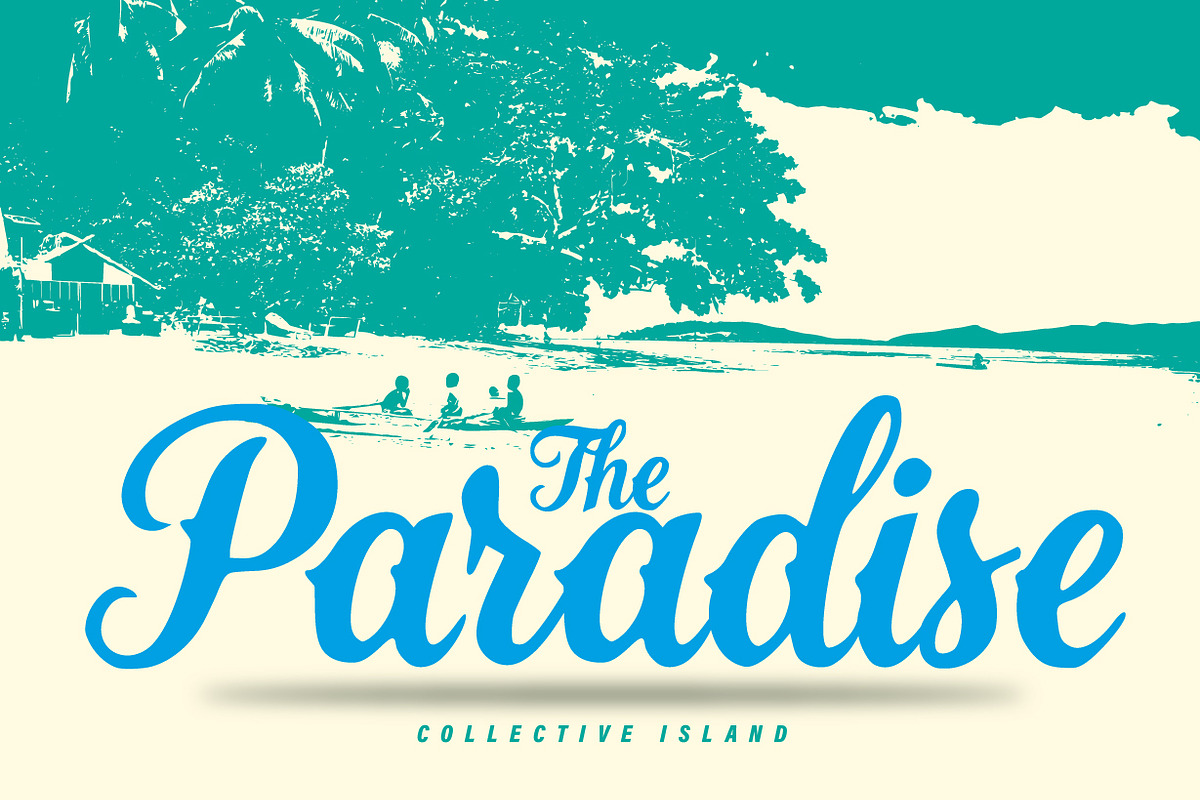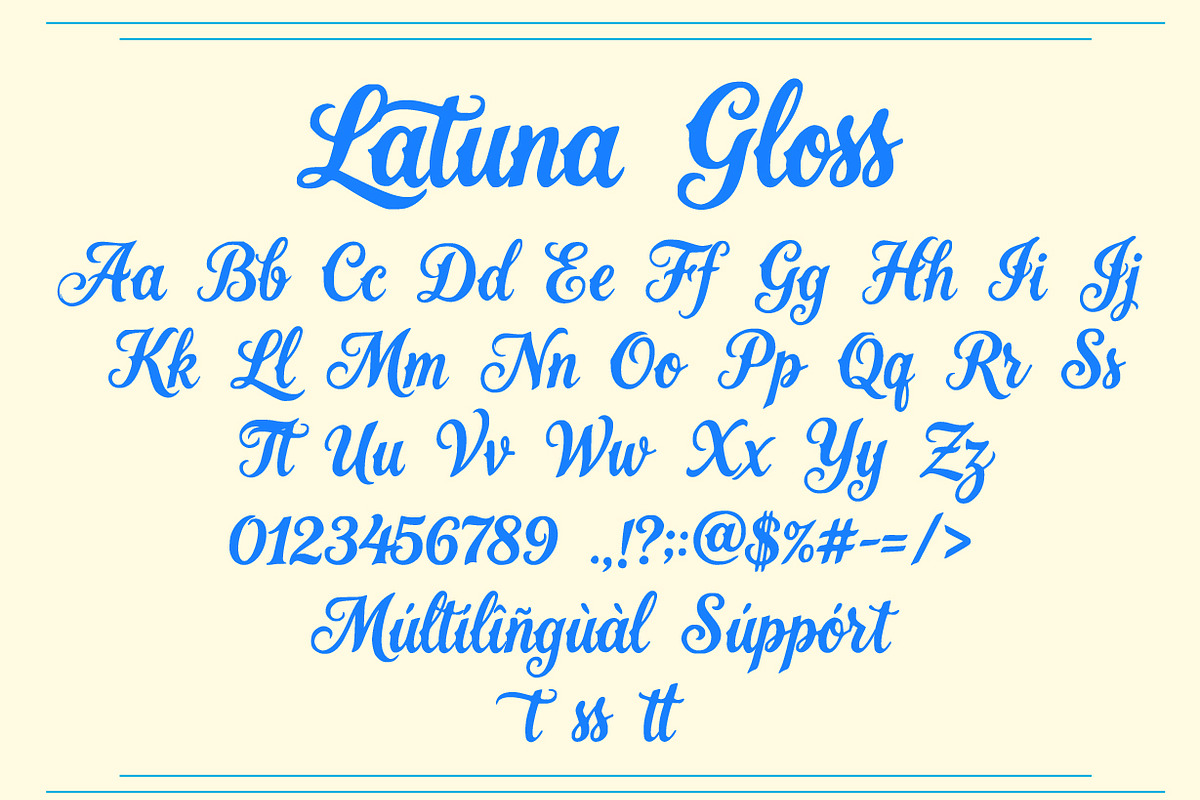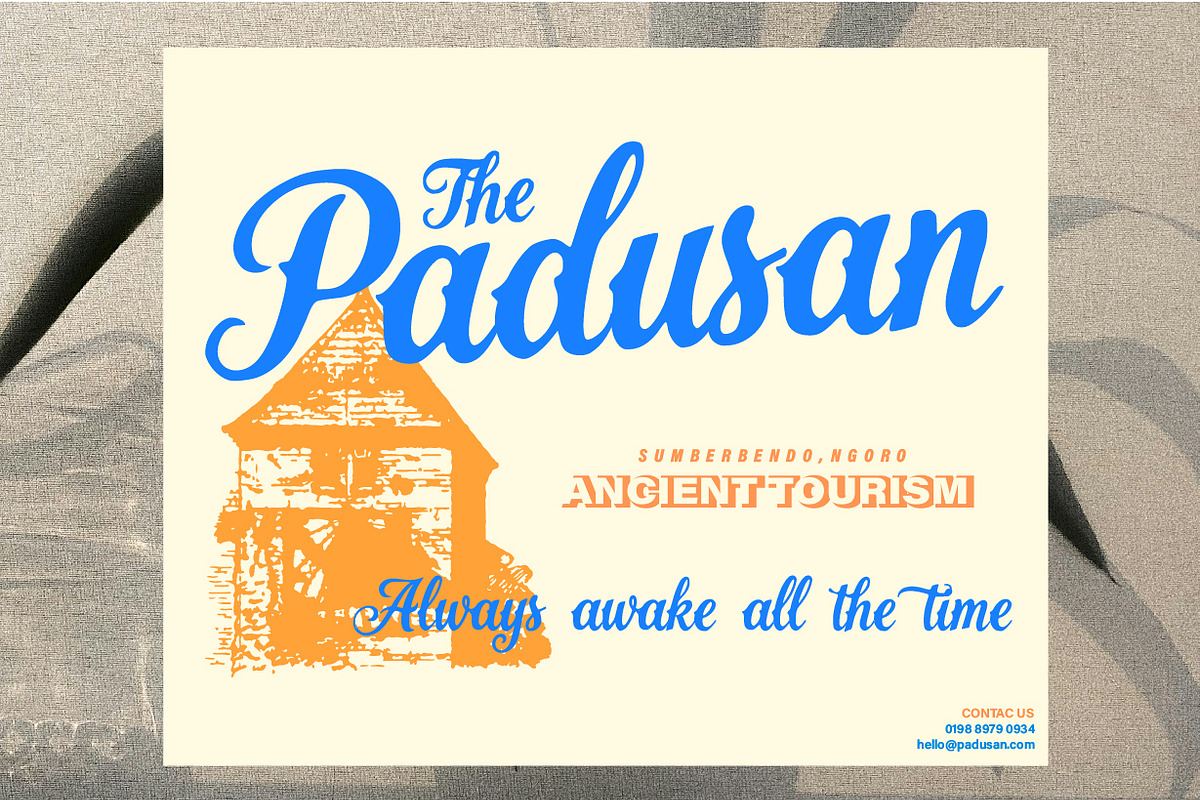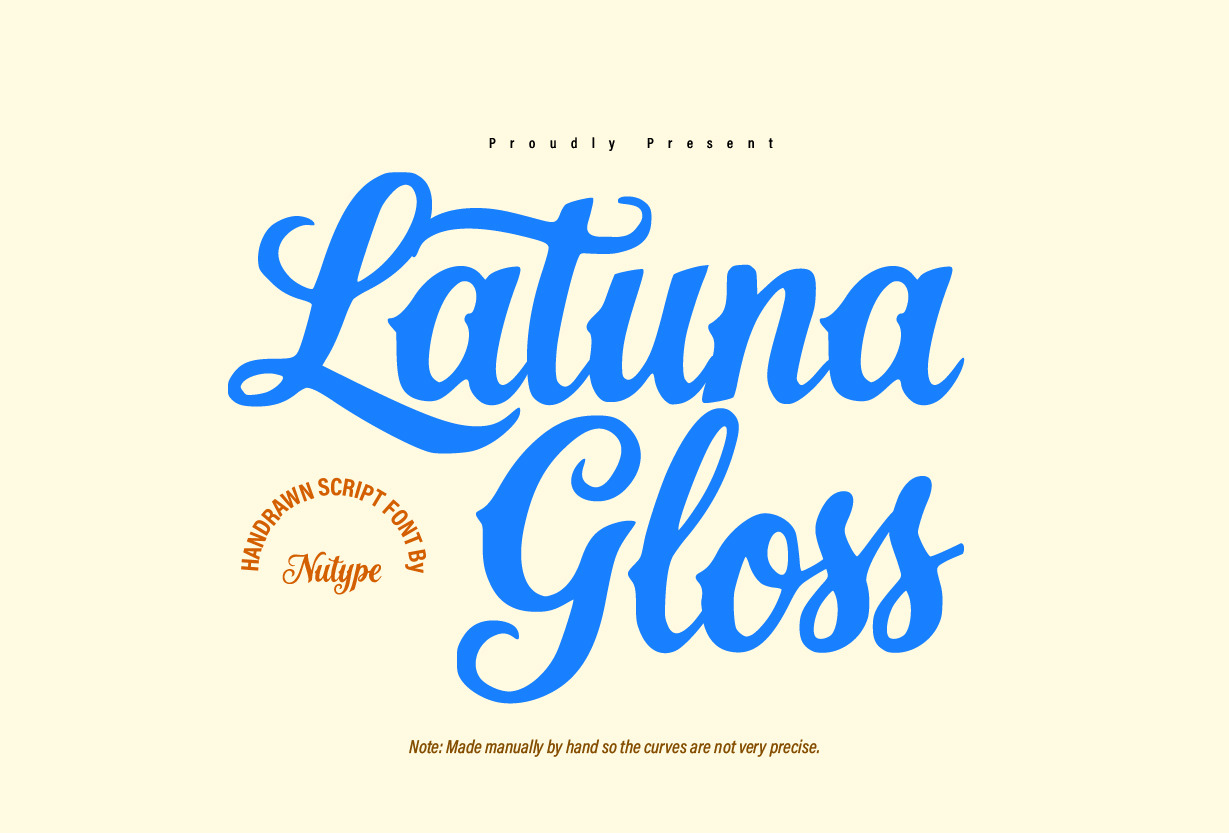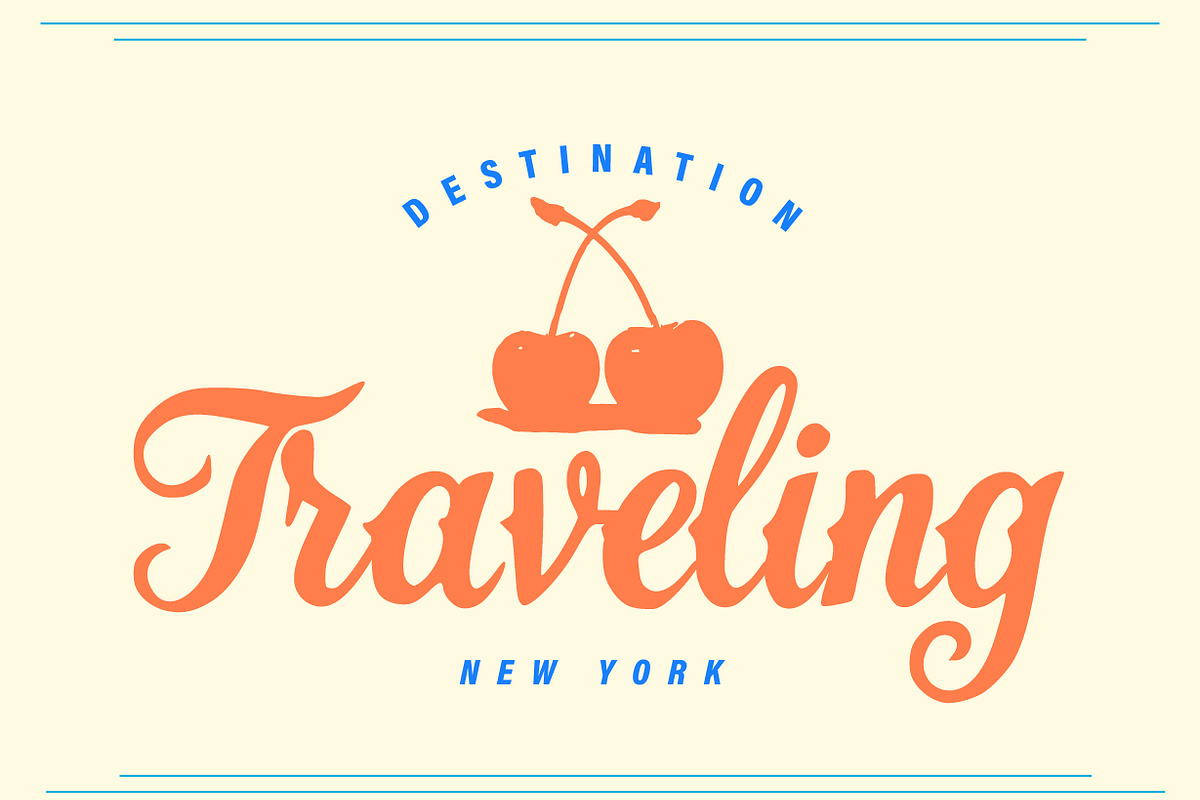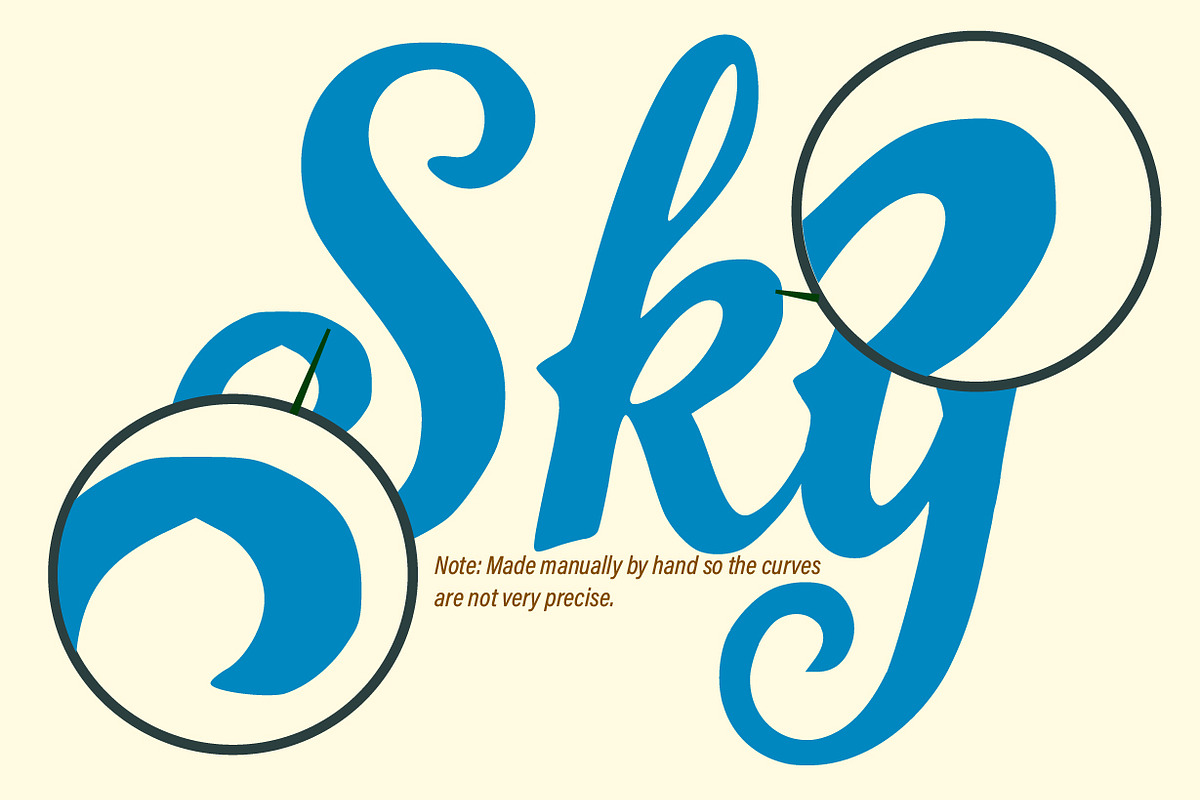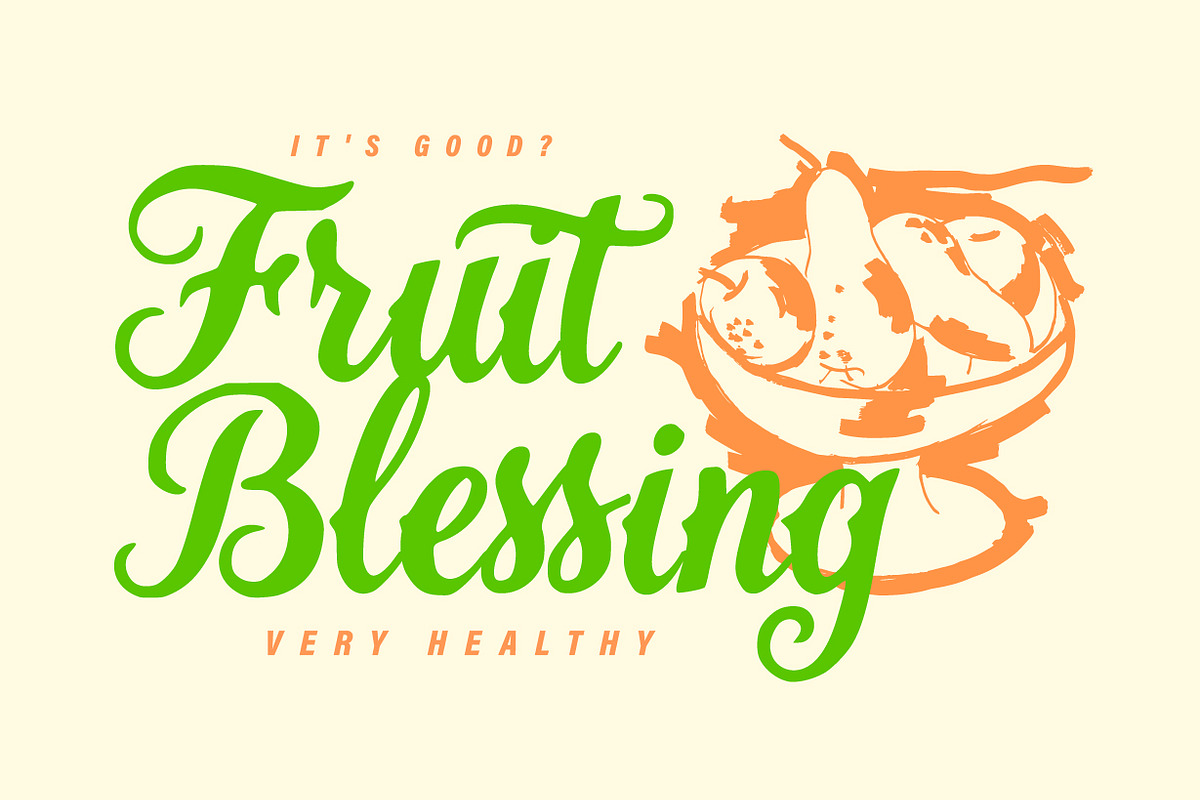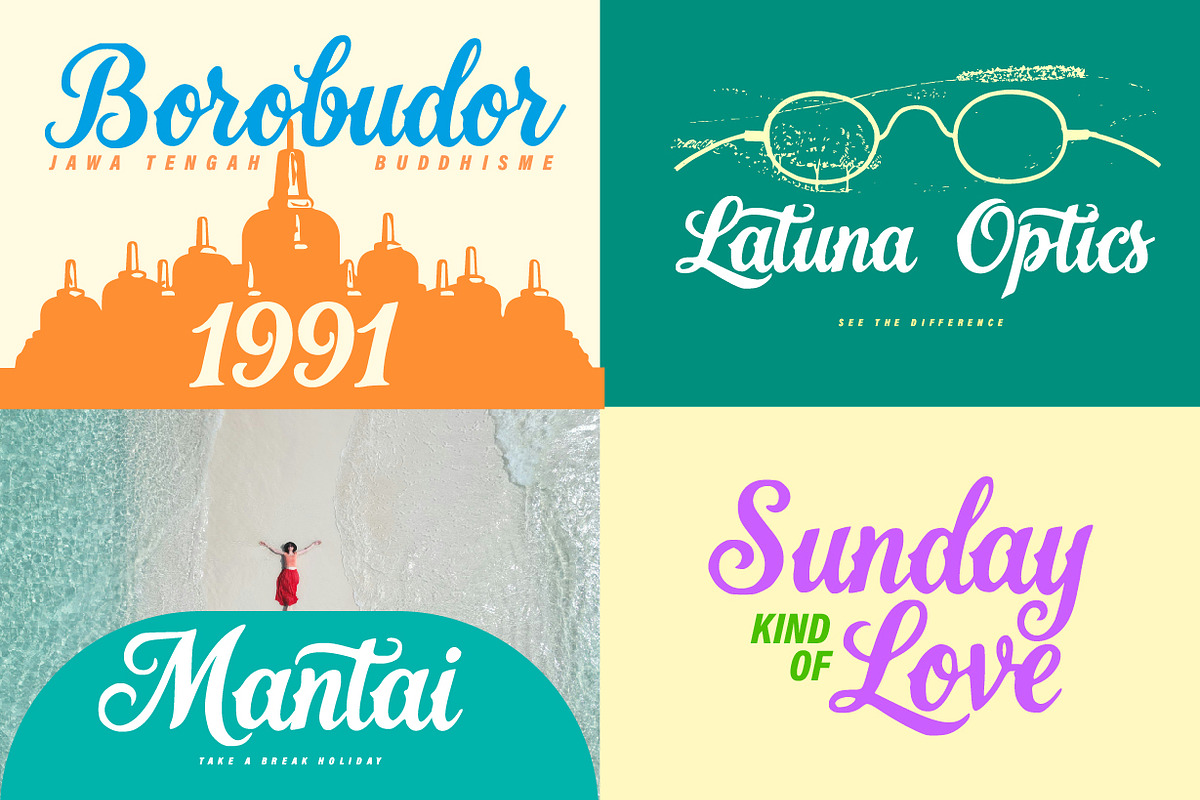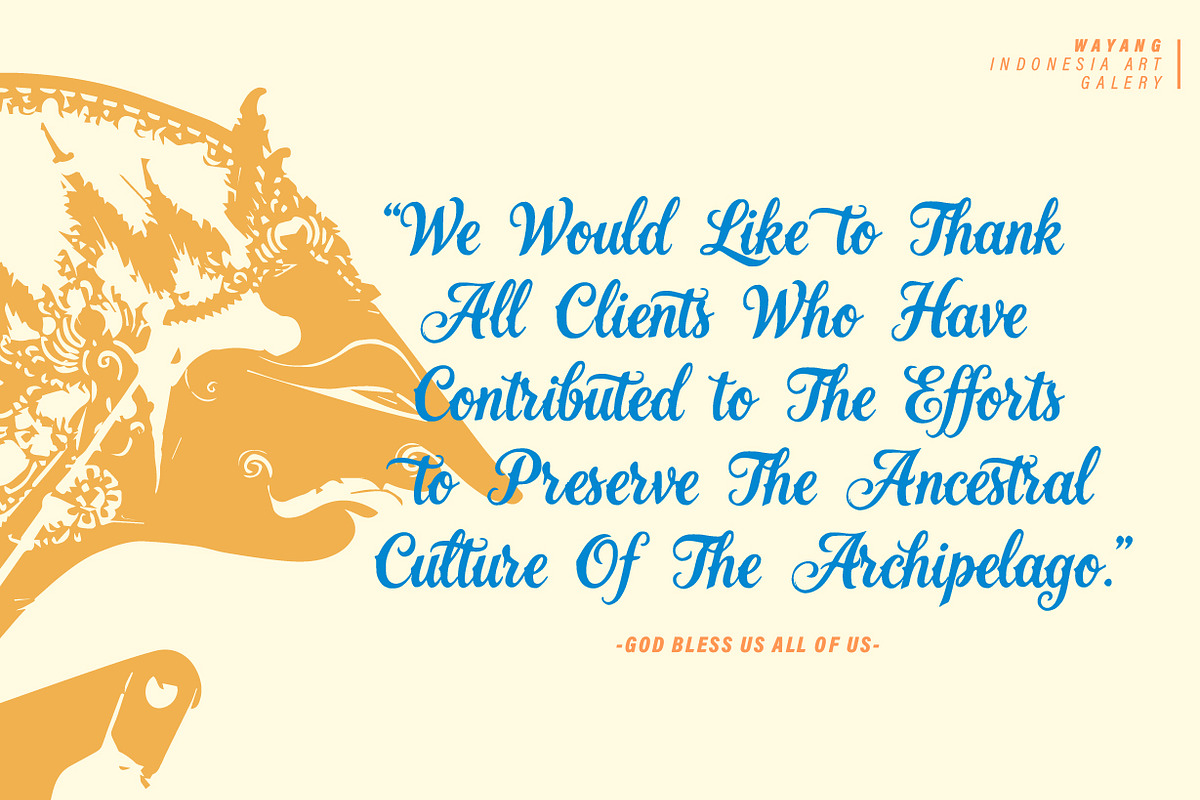
Latuna Gloss - Handrawn Script Font
Latuna Gloss is a script typeface with hand-drawn strokes that give it a natural look. It also features alternates and ligatures. This font can be used for various purposes, such as brand names, wedding invitations, posters, promotional materials, etc.
- Capital Letters, Lowercase Letters, Foreign Letter Support, Numbers, and Punctuation
- Alternatives and Ligatures